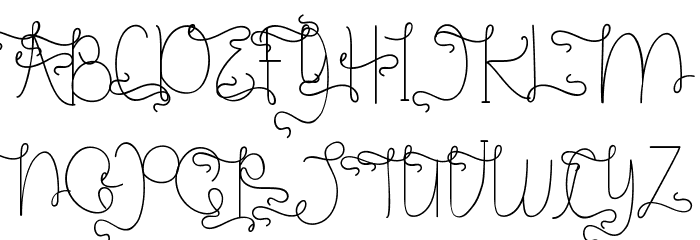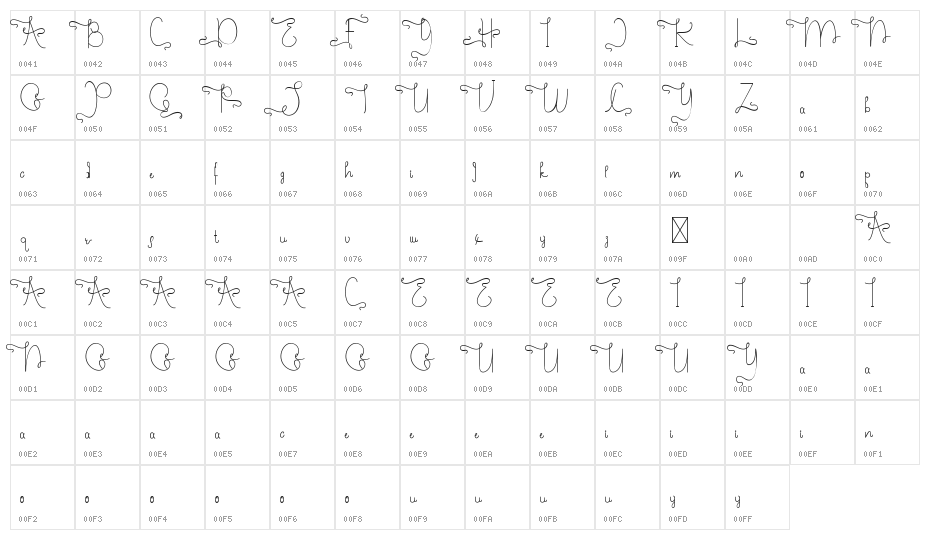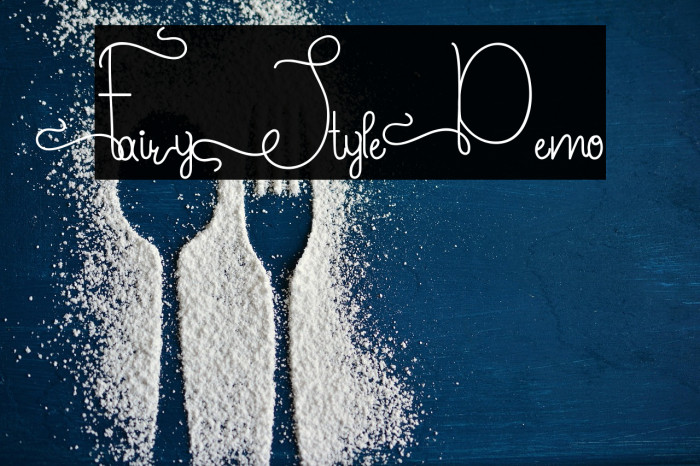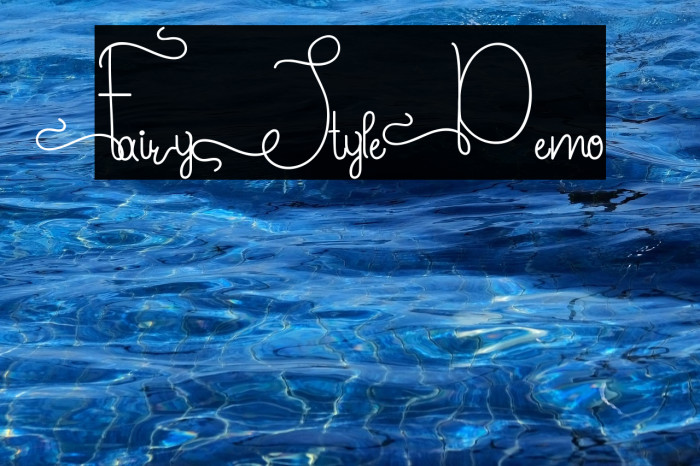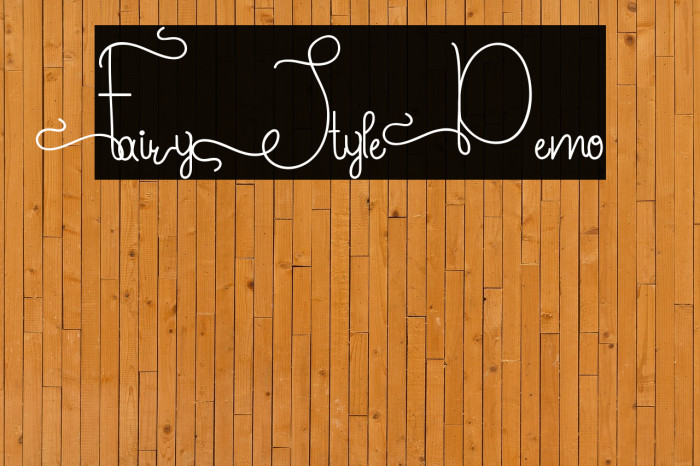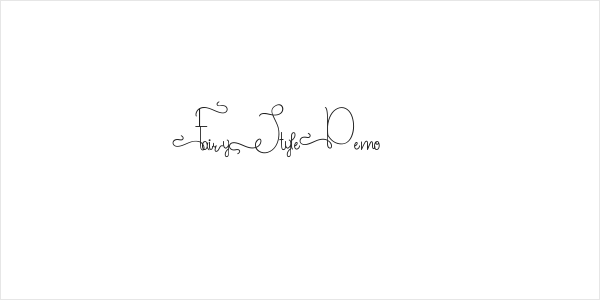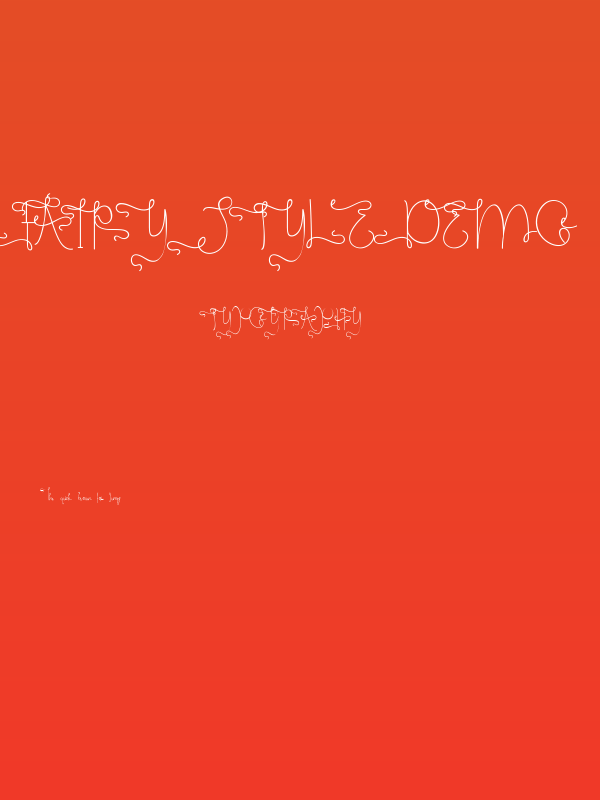
Fairy Style Demo Font
Fairy Style Demo Description
This whimsical and enchanting font features delicate, swirling lines that evoke a sense of magic and fantasy. The characters are adorned with intricate curls and loops, giving them a fairy-tale-like appearance. The uppercase letters are particularly ornate, with extended flourishes that create a sense of movement and elegance. The lowercase letters maintain a consistent style, though they are slightly more restrained, ensuring readability while still maintaining the font's decorative charm. The numbers and special characters are designed to match the overall aesthetic, making this font a cohesive choice for projects that require a touch of whimsy.